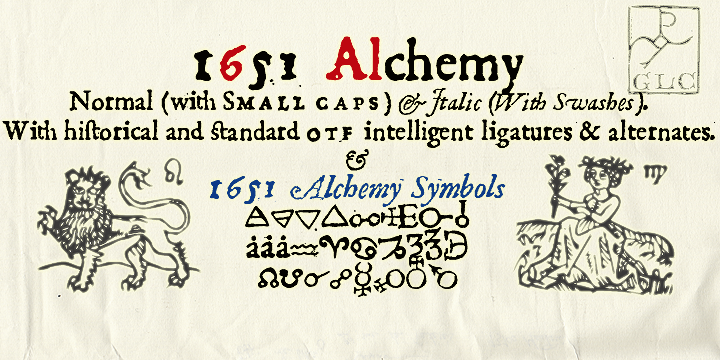
1651 Alchemy Font is perfect for historical novels, medieval fantasy games, mystical branding projects, occult book covers, antique shop signage, renaissance fair materials, gothic wedding invitations, and vintage apothecary designs. This enchanting typeface brings ancient wisdom and mystical elegance to any project requiring historical authenticity and supernatural appeal.
What makes 1651 Alchemy Font exciting is its authentic recreation of 17th-century manuscript lettering combined with mystical symbolism. The font features ornate letterforms with intricate details that evoke the mysterious world of medieval alchemists and ancient scholars. Its aged appearance and decorative flourishes create an immediate connection to historical manuscripts, making it perfect for projects that need to convey ancient knowledge, mystery, and scholarly tradition.
The 1651 Alchemy Font family includes Regular, Bold, Ornamental, and Decorative variants, each capturing different aspects of historical manuscript traditions. The family features special alchemical symbols, medieval ligatures, and ornate capital letters that enhance its authentic period feel. These variants provide designers with comprehensive tools for creating historically accurate and mystically appealing typography.
For designers working on fantasy projects, historical recreations, or mystical branding, 1651 Alchemy Font Free Download offers unparalleled authenticity and magical appeal. Its combination of historical accuracy and mystical atmosphere makes it ideal for communicating ancient wisdom, scholarly pursuits, and supernatural themes with genuine medieval manuscript character and enchanting visual presence.